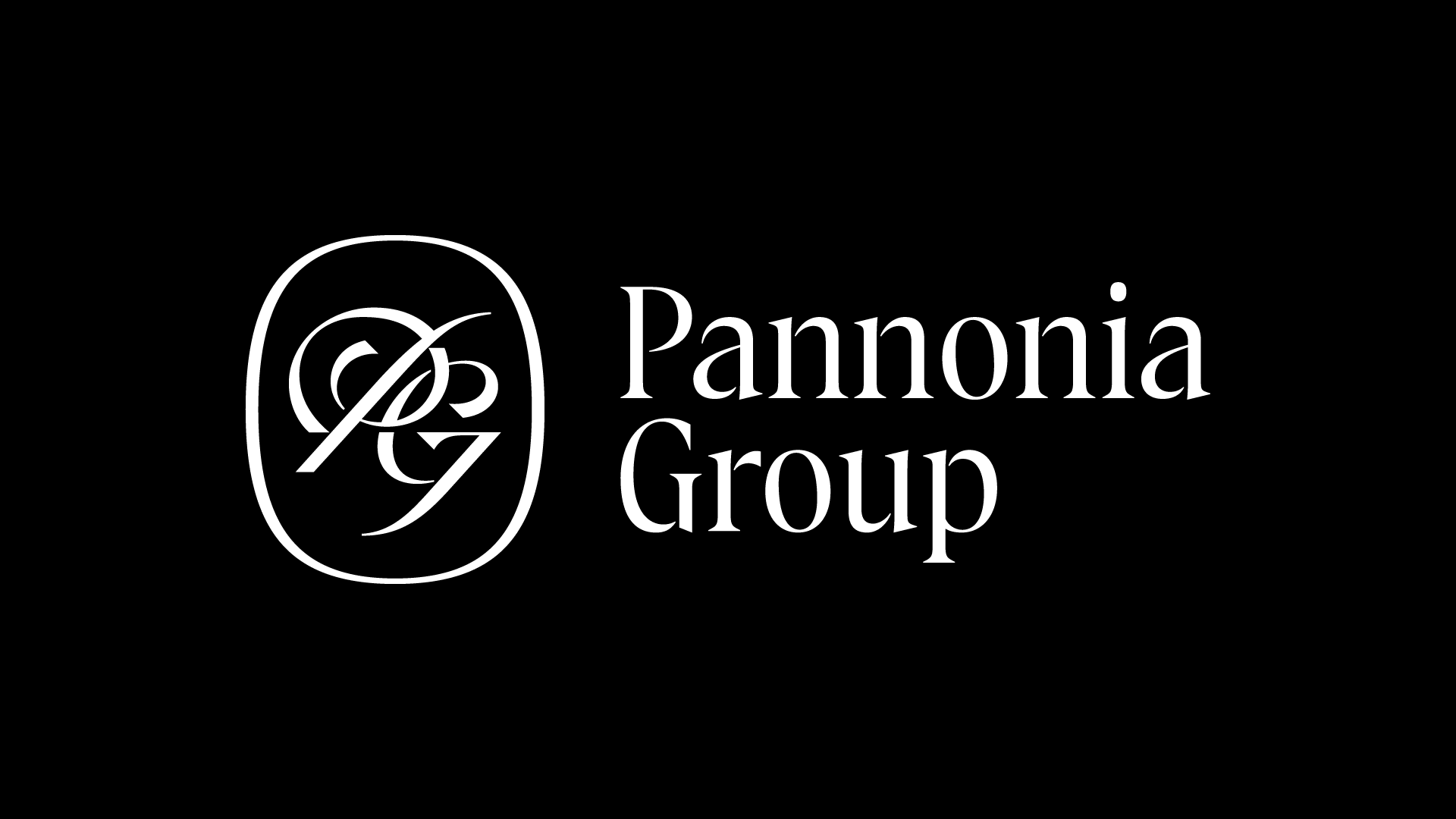
Pannonia Group
Logo for Pannonia Group, a Slovak investments fund. The logo combines the expressive monogram PG with the elegant serif wordmark. The typeface has condensed proportions, high and slightly dynamic contrast, fine wedge serifs and detached strokes.